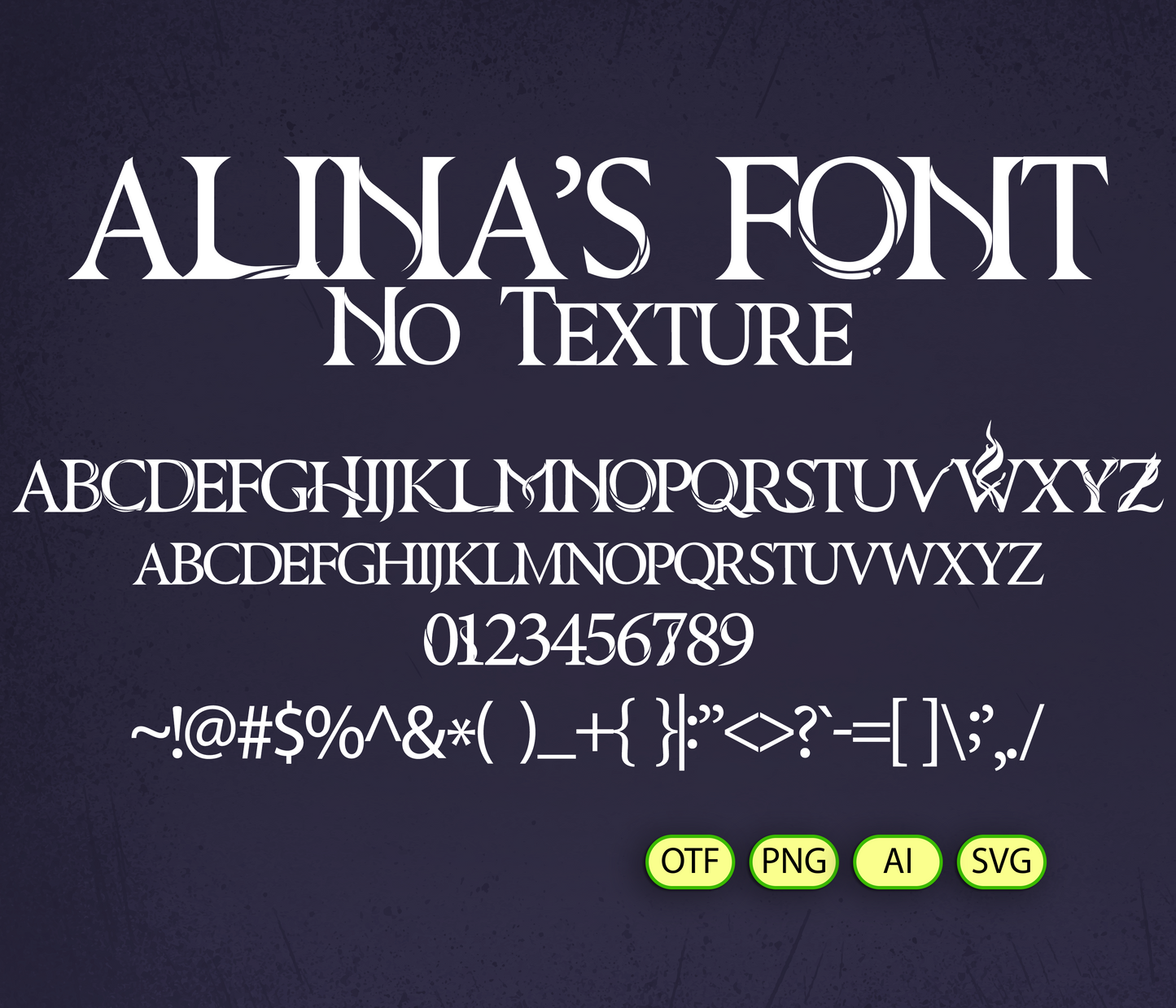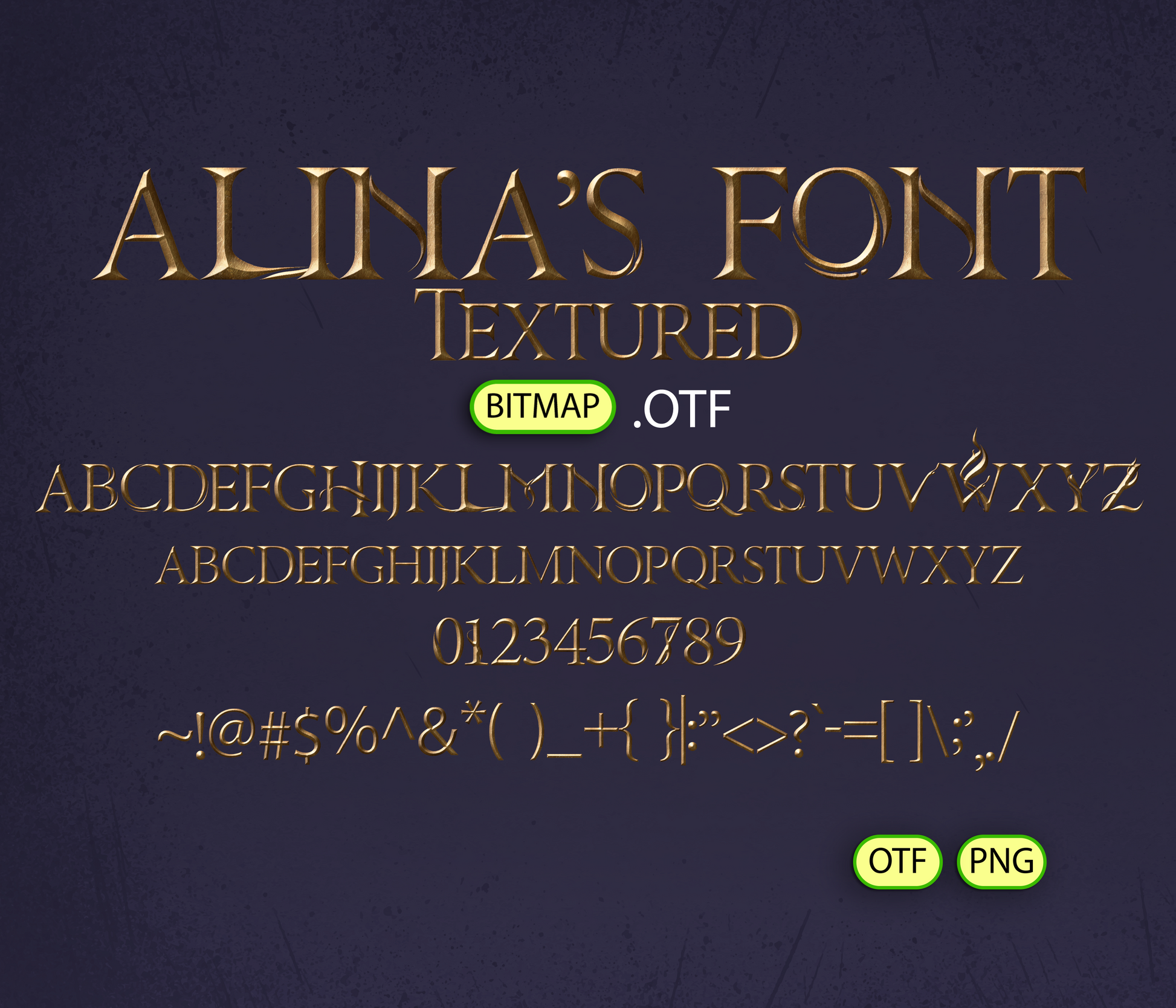
Enchanted Academy Legacy Font Textured
Enchanted Academy Legacy Textured Font: A Magical-Inspired Textured Digital Typeface
Embark on a magical design journey with the Enchanted Academy Legacy Textured Font, a textured digital typeface infused with the mystical allure of a beloved wizarding universe. Each character is woven with whispers of wizardry, ready to bring a touch of magic to every creation. This font is the perfect companion for crafting magical birthday invitations, whimsical cake toppers, or any enchanted endeavor that calls for a sprinkle of sorcery.
What font is the Enchanted Academy Legacy font?
It's a meticulously designed typeface that weaves together old-world elegance and magical mystique. Each character in this font is crafted to echo the gothic and mystical aesthetics seen throughout a legendary school of witchcraft and wizardry. The font features a comprehensive character set, including alphabets, numbers, and special characters, making it a true embodiment of a wizarding world's typographic style.
What Can You Do With The Enchanted Academy Legacy font?
The Enchanted Academy Legacy Font transforms ordinary text into enchanting script. Its versatility is perfect for a variety of personalized projects and merchandise inspired by magical tales and fantasy games. Here are some specific uses:
- Custom invitations for magical-themed events
- Personalized apparel and accessories
- Unique designs for wizarding world merchandise
- Custom bookmarks and stationery for fantasy book lovers
- Themed website and blog designs for magic enthusiasts
- Personalized gaming streams or YouTube channel art
- Handmade gift tags and greeting cards
- Magical world-themed room decor
- Customized journal and diary covers
- Personalized wall art and posters